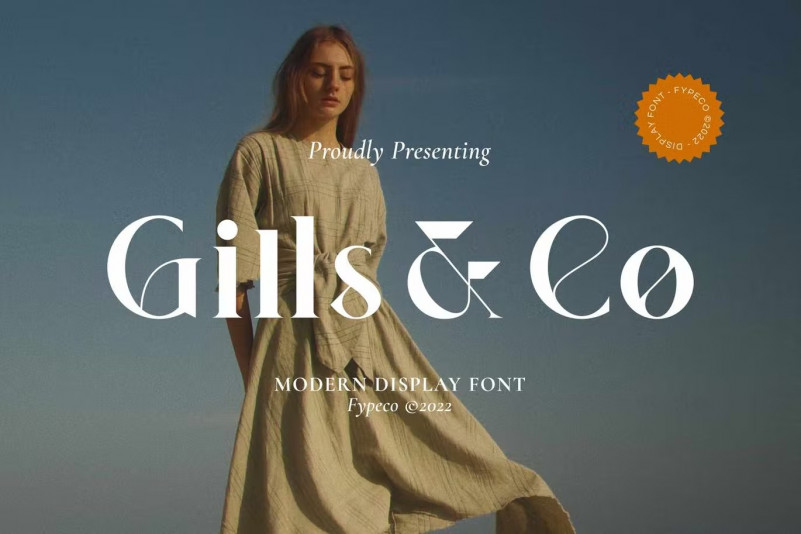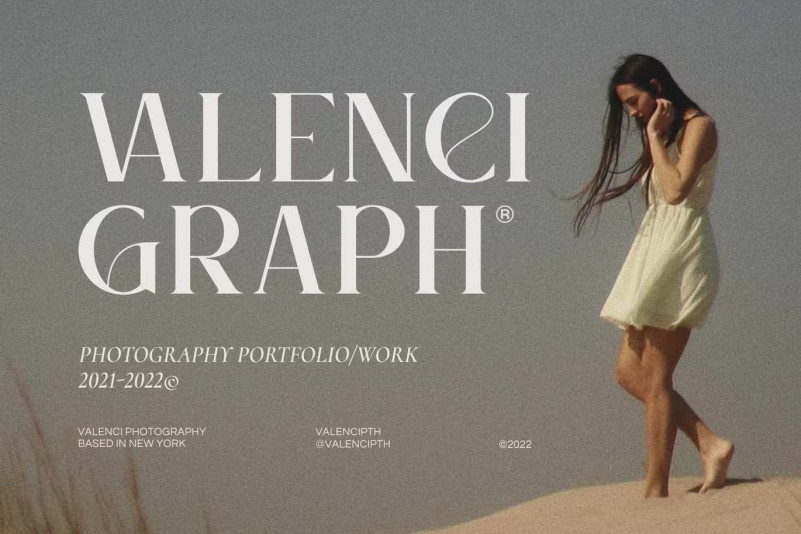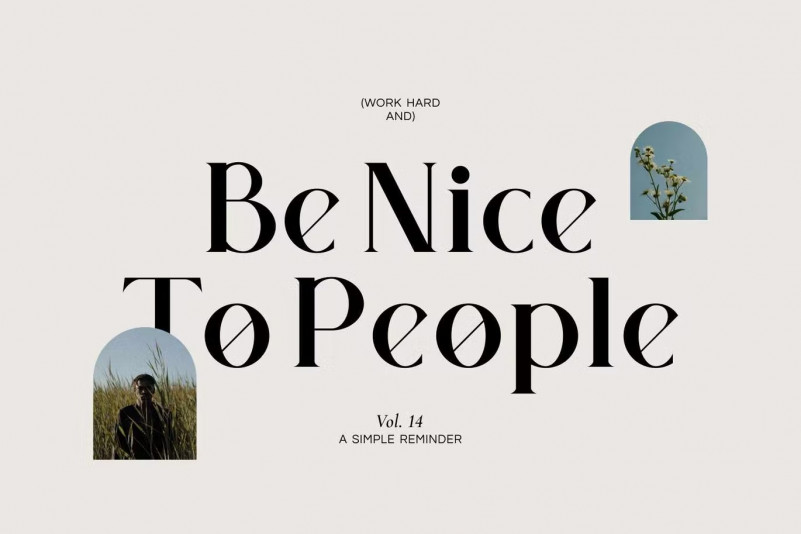
Gills & Co Font
Gills & Co is modern display font with alternatives and ligatures. With its modern and minimal look, Gills & Co brings a luxurious and clean style to stunning logos, quotes, posts, blog posts, branding projects, magazine imagery, and much more. Gills & Co comes with multilingual support also.
Font Features -Uppercase -Lowercase -Alternatives -Ligatures -Numerals & Punctuation -Multilingual Support